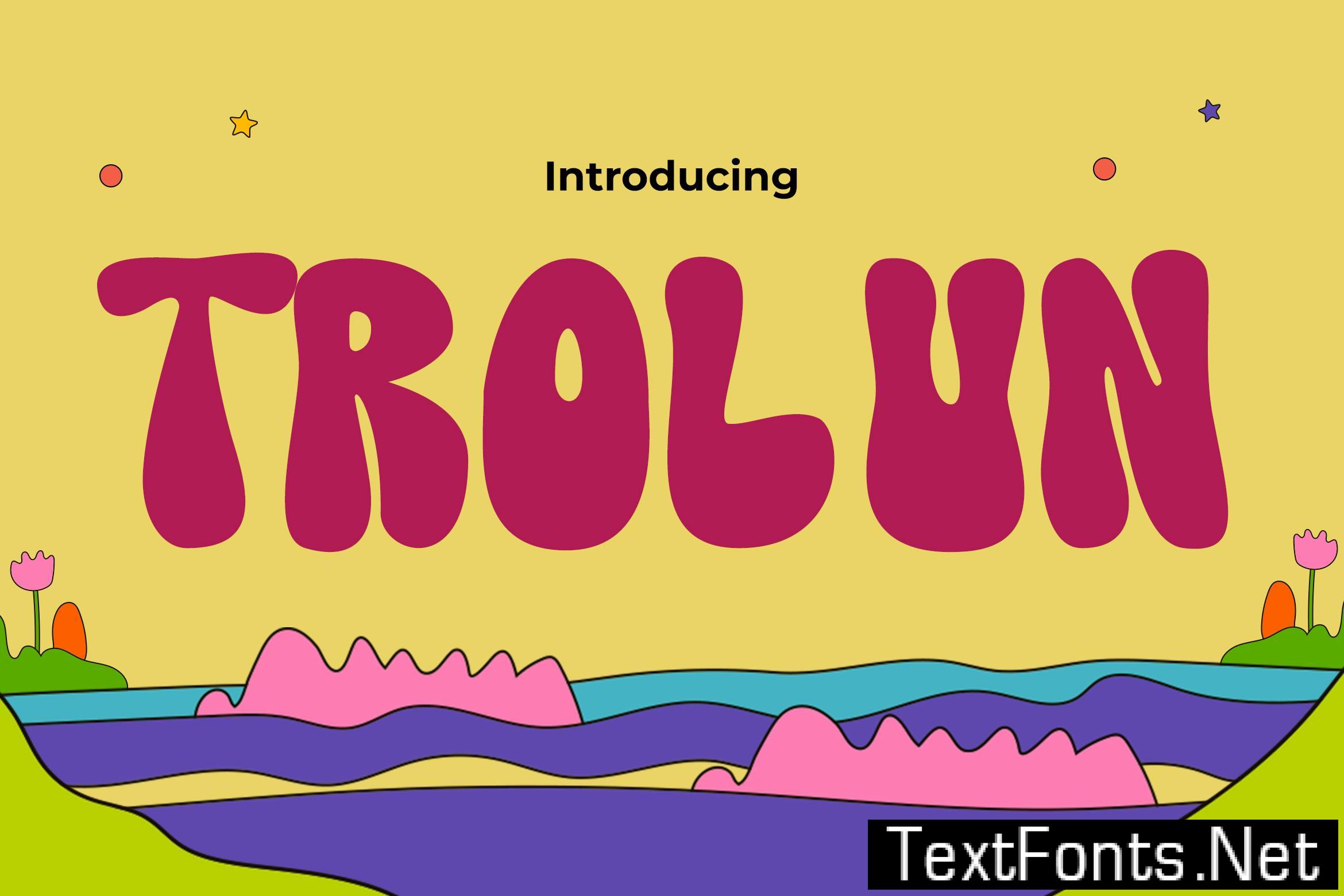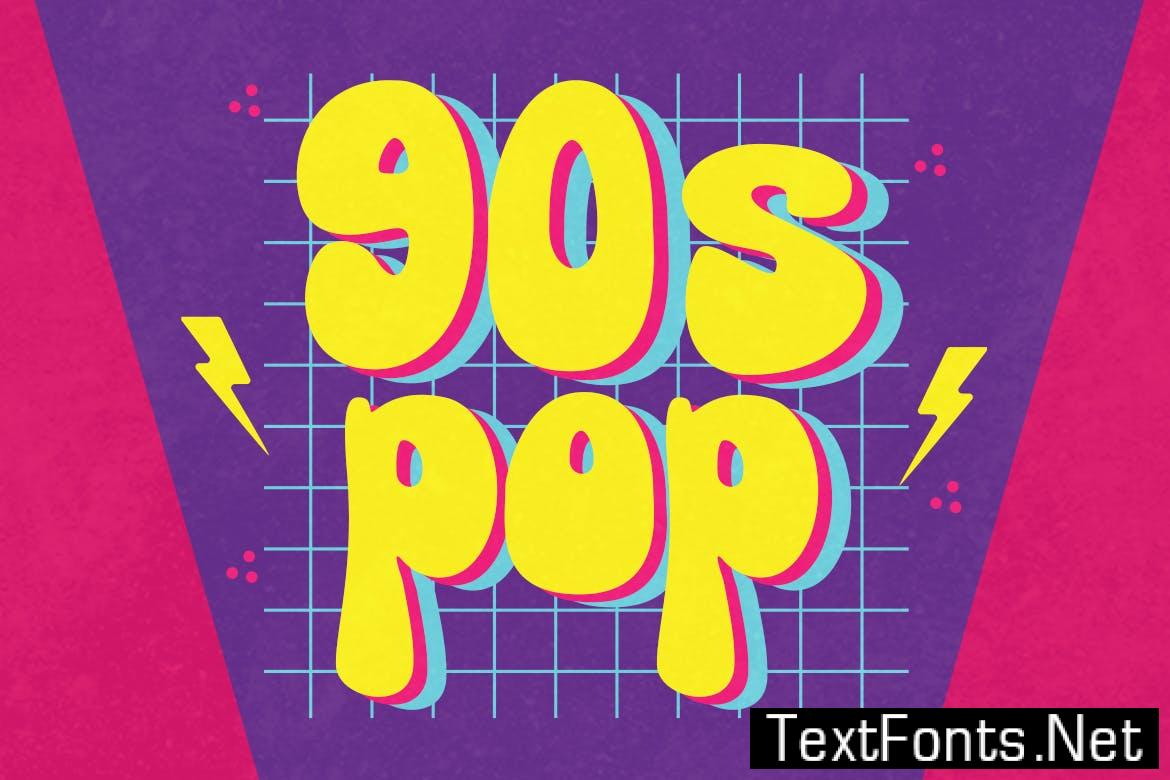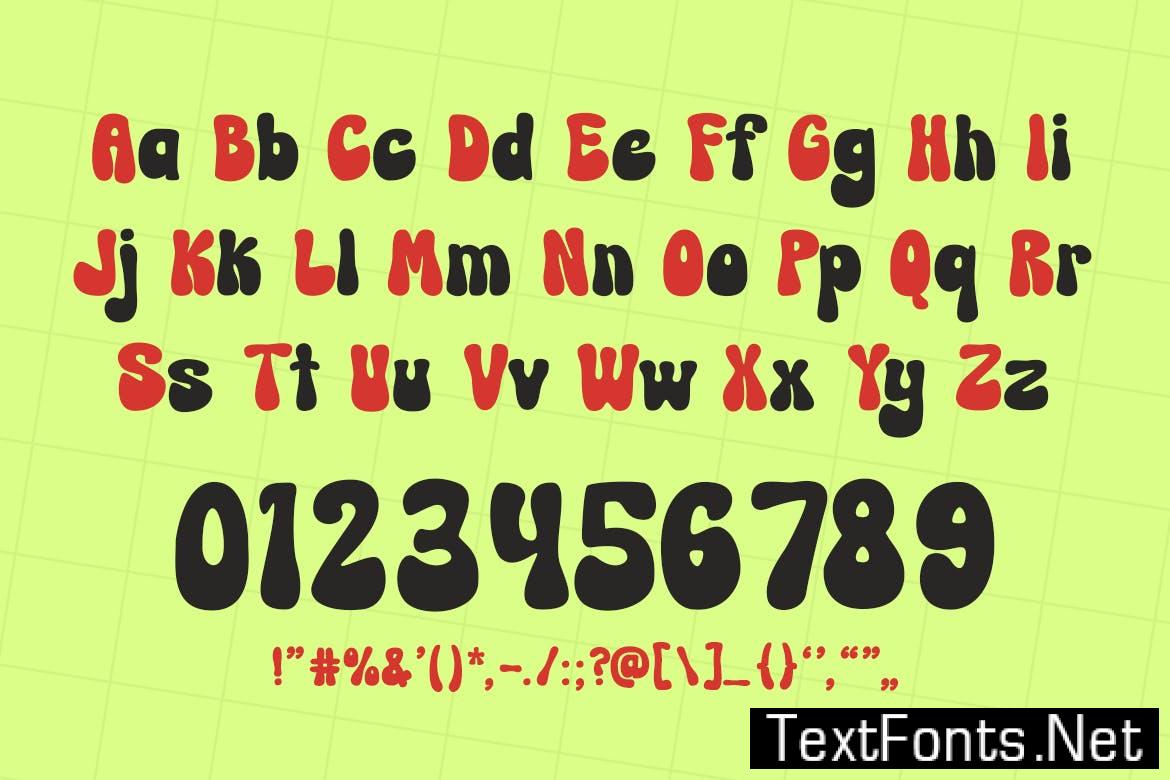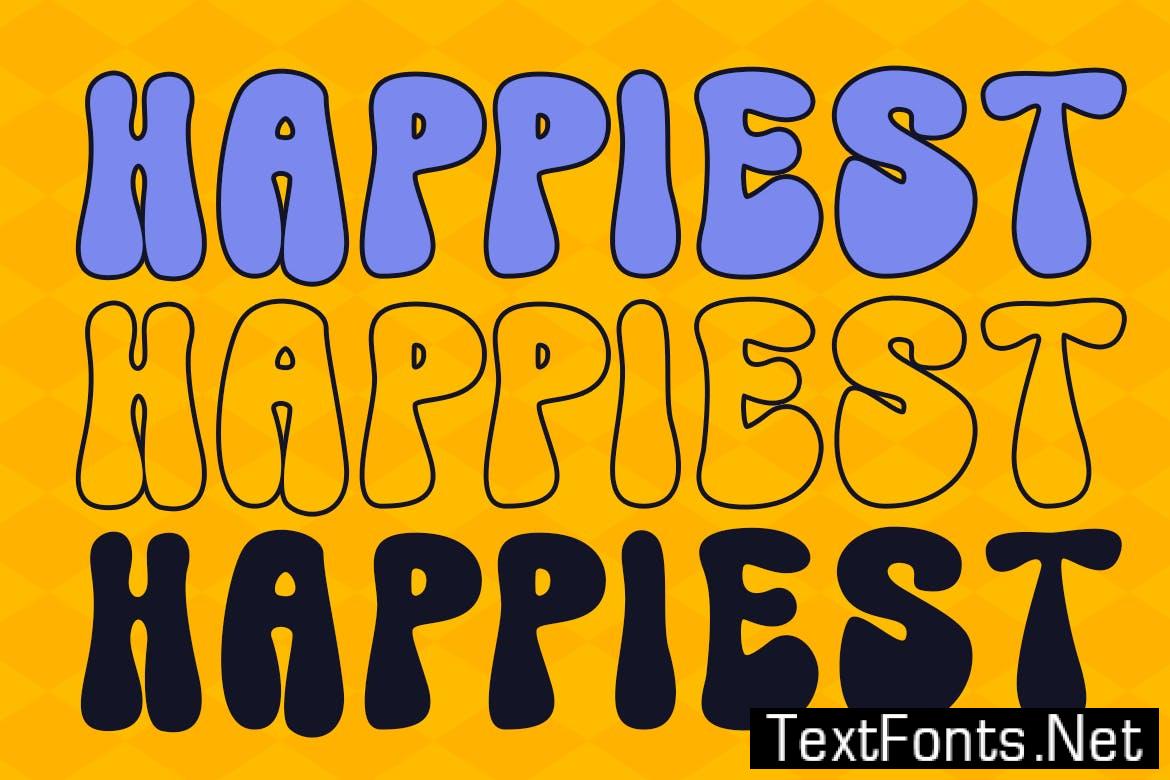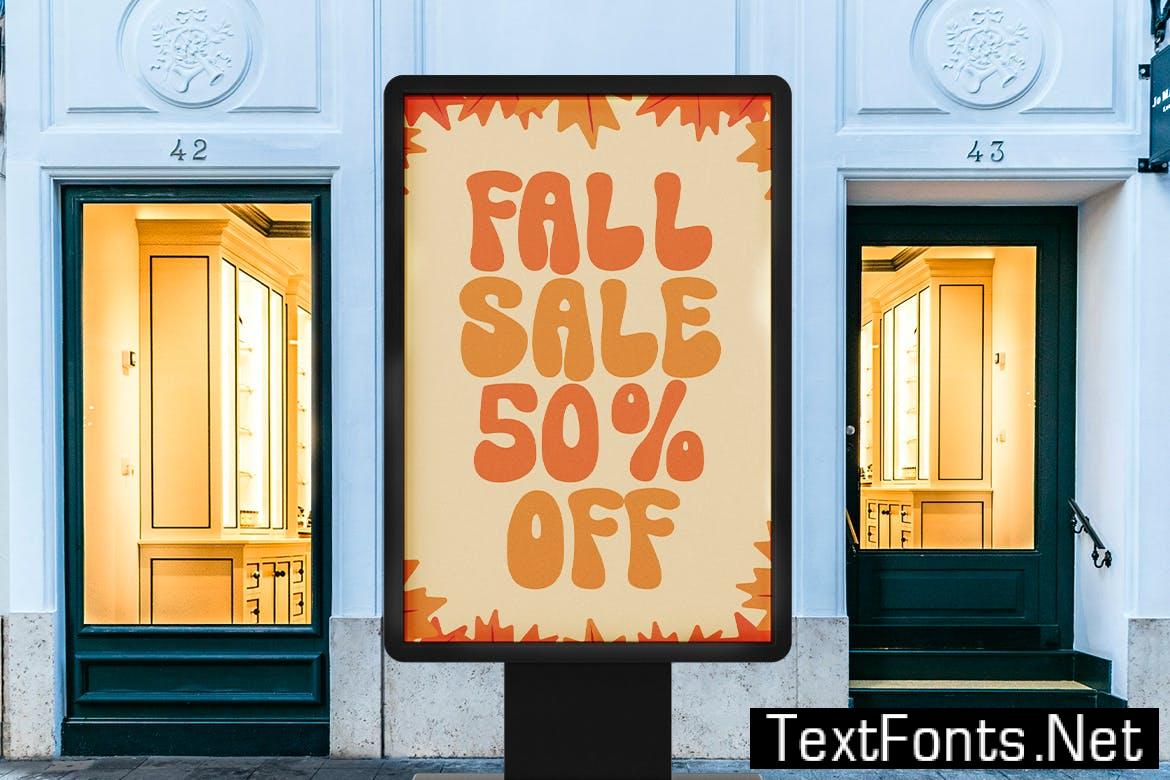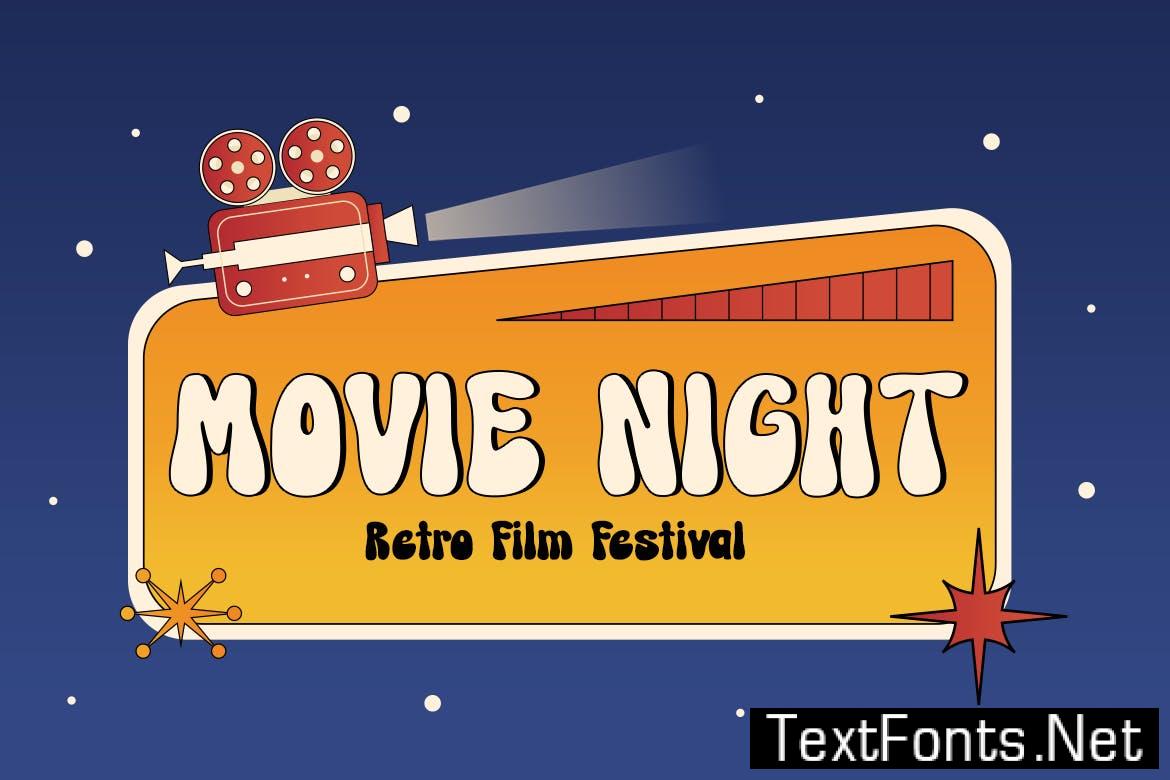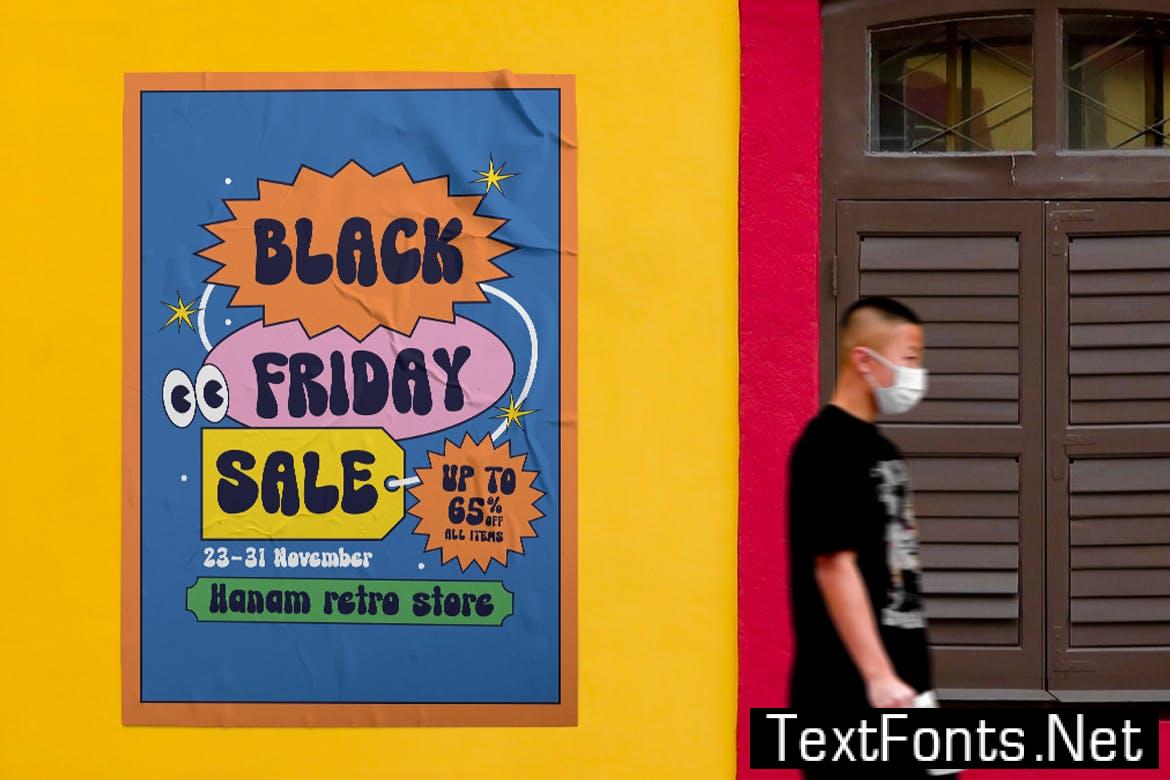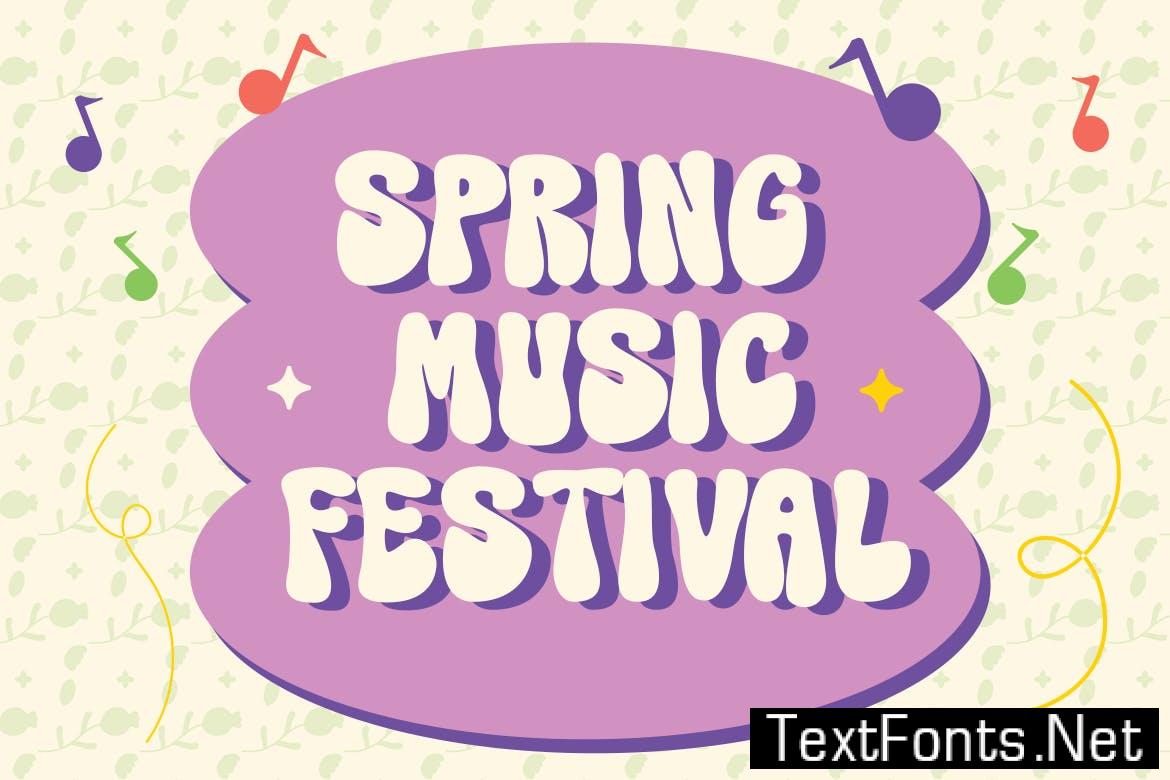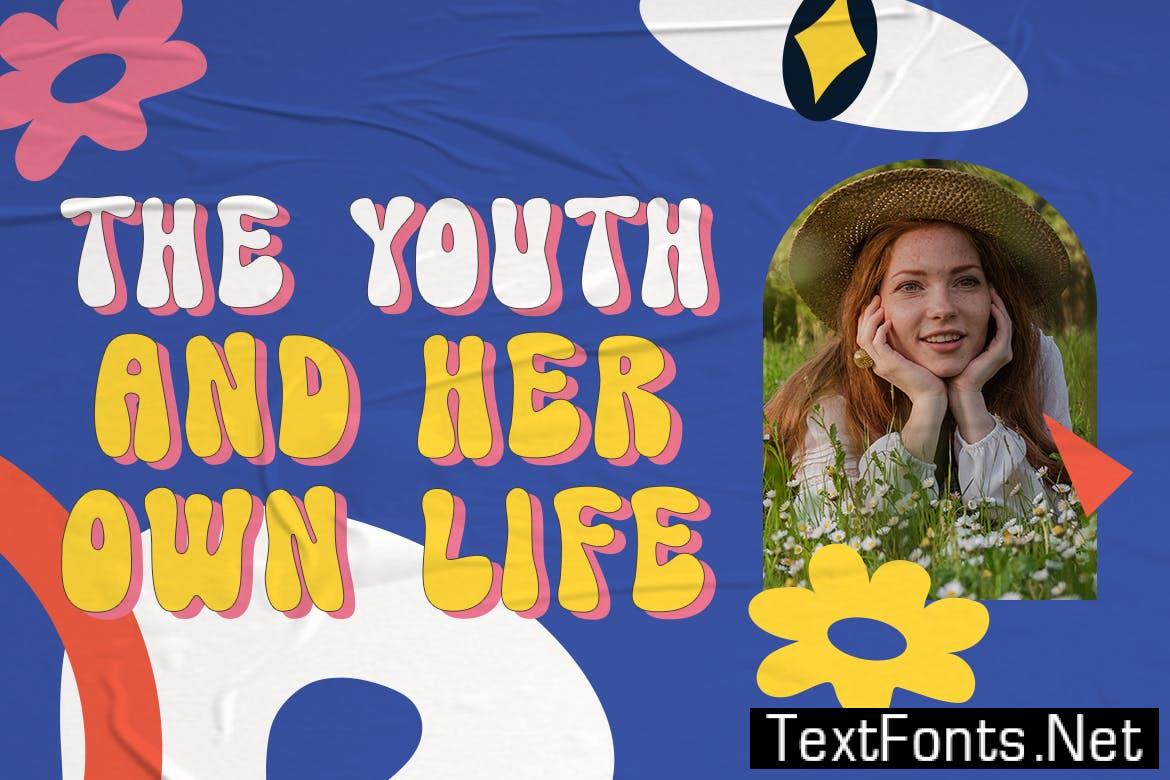
Trolun captures the essence of the 70s with its unique blend of retro charm and classic design, making it a perfect choice for projects that evoke the nostalgic flair of a vibrant era. This vintage font brings a timeless yet distinctive touch to logos, offering a memorable identity that resonates with a broad audience. Whether embedding profound quotes, crafting inviting posters, or designing eye-catching covers, Trolun adds a layer of authenticity and classic appeal. Its style effectively creates invitations and greetings that convey warmth and familiarity. At the same time, its application in packaging and branding infuses products with a retro aesthetic that attracts attention and sparks curiosity.